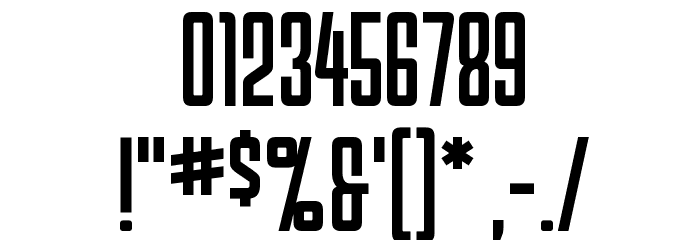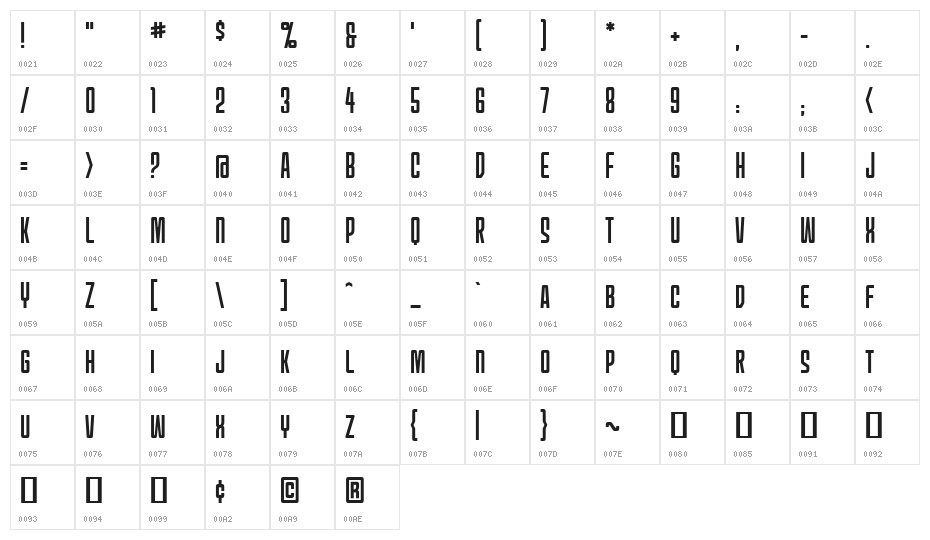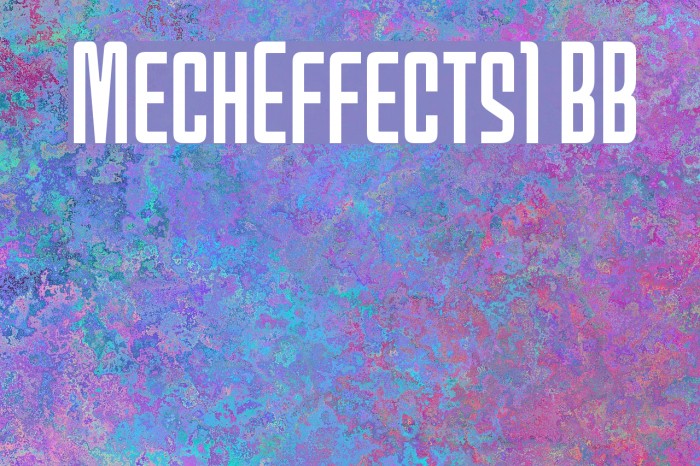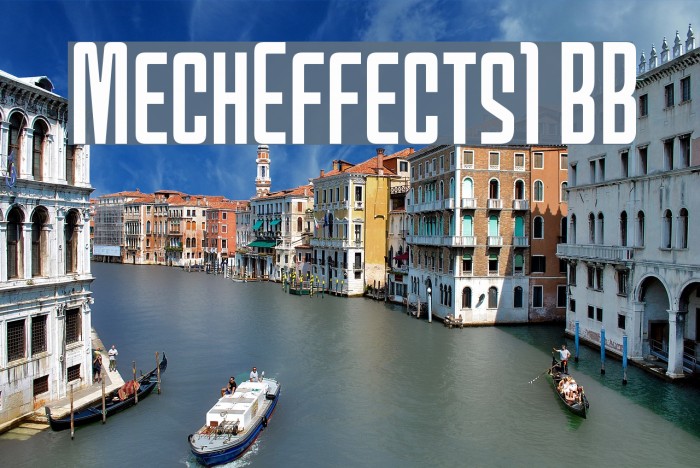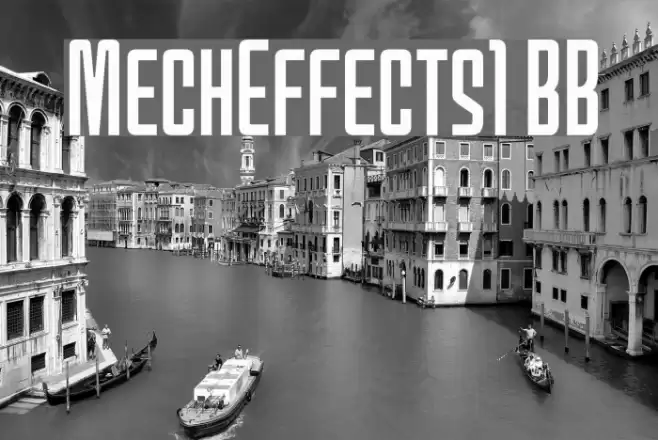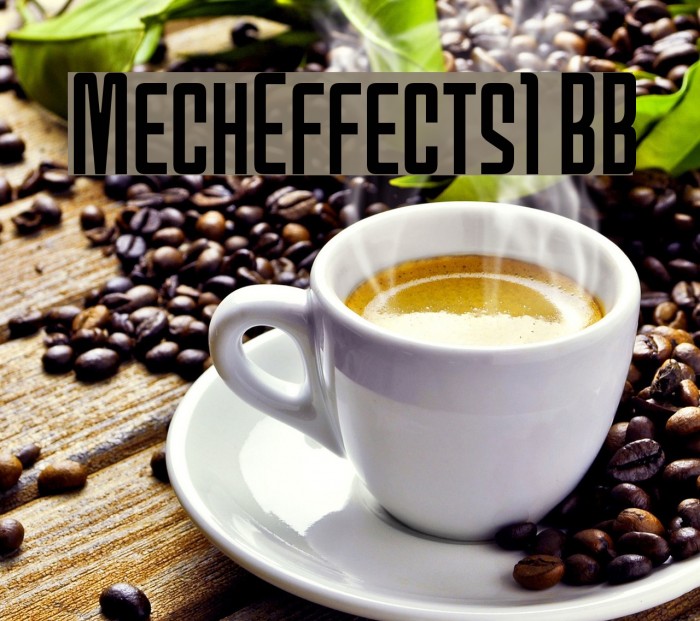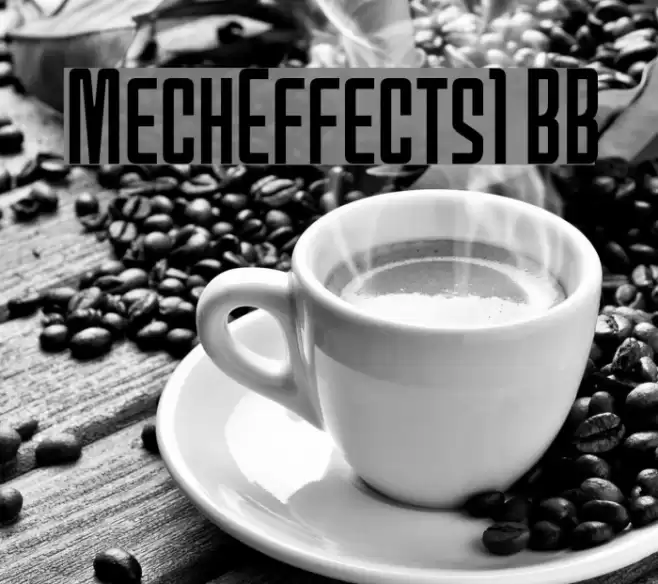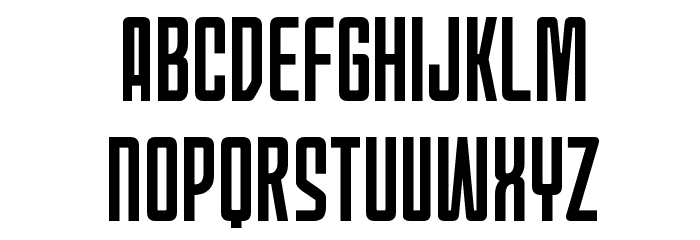
MechEffects1 BB Font
MechEffects1 BB Description
This font features a bold and modern design with a strong geometric structure. The characters are tall and narrow, giving it a condensed appearance that is both striking and efficient in space usage. The uppercase letters are uniform in height, while the lowercase letters maintain a consistent style, ensuring readability. The numerals are clear and distinct, matching the overall aesthetic of the typeface. Special characters are well-defined, adding versatility to its use. The font's clean lines and sharp angles make it ideal for projects that require a contemporary and impactful look.
| Proposed Projects | Ideal for technology branding, sports team logos, futuristic posters, and dynamic headlines. |